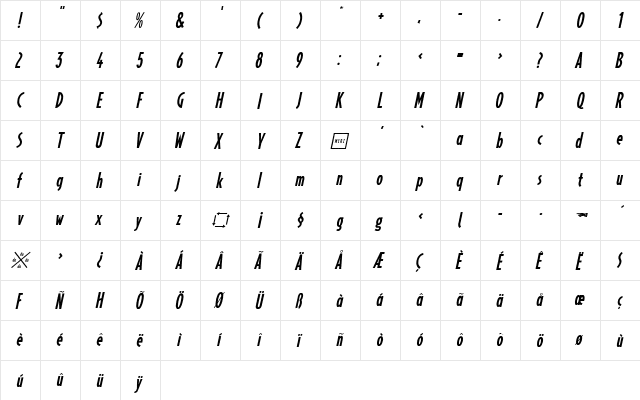
MerzIrregular Regular
Design Context for MerzIrregular Typeface
MerzIrregular takes a measured approach to typography — its balanced proportions and neutral character make it a reliable workhorse for both digital and print work.